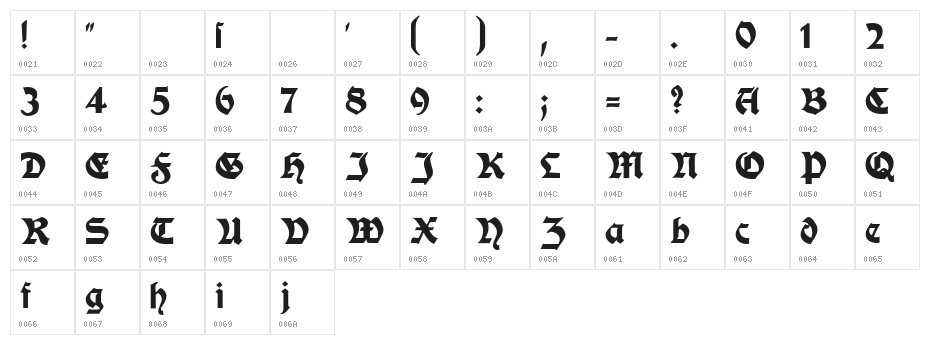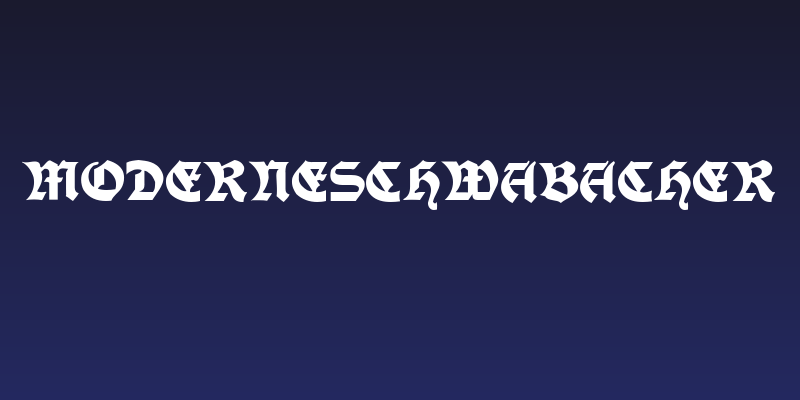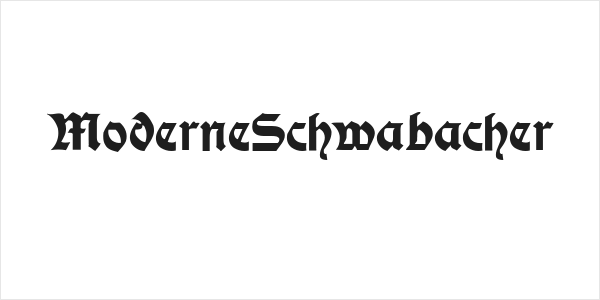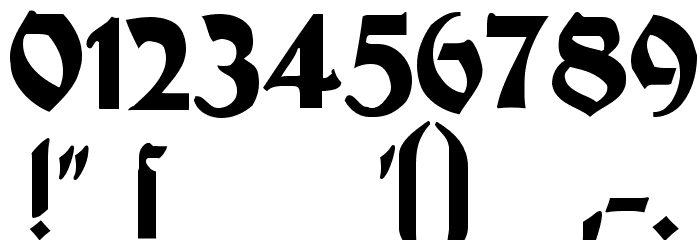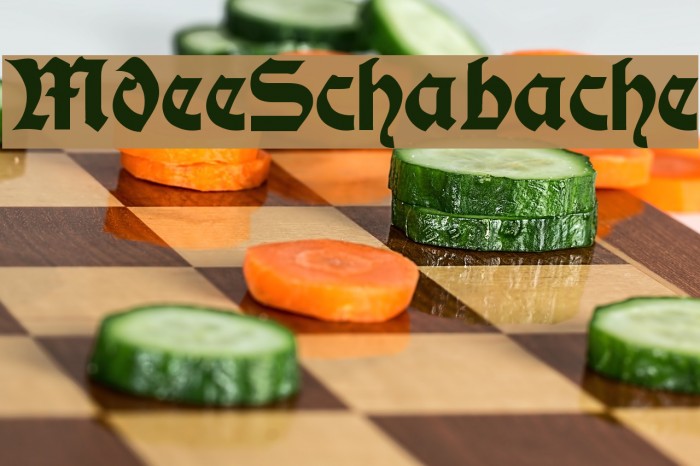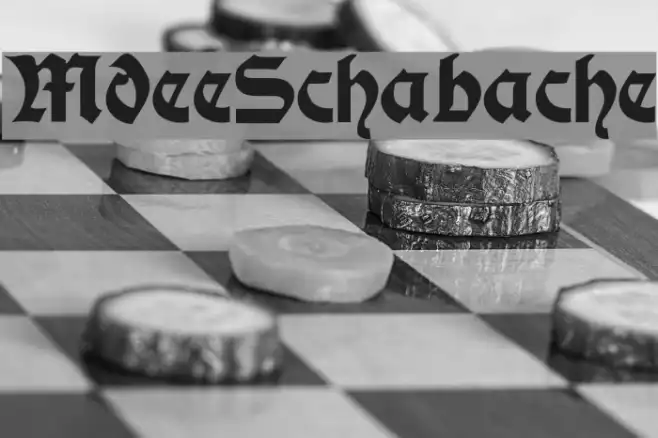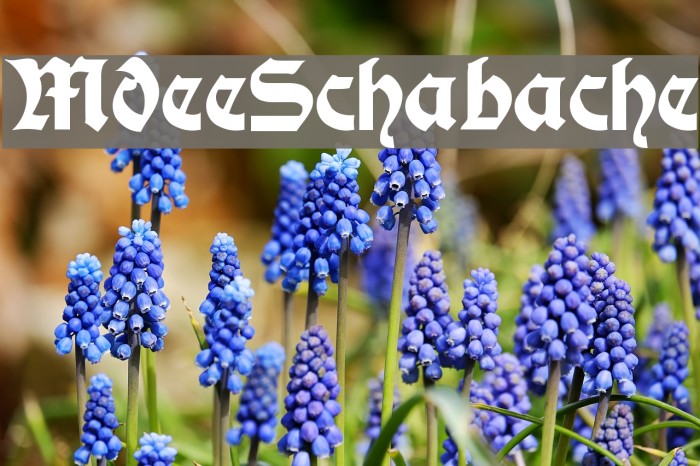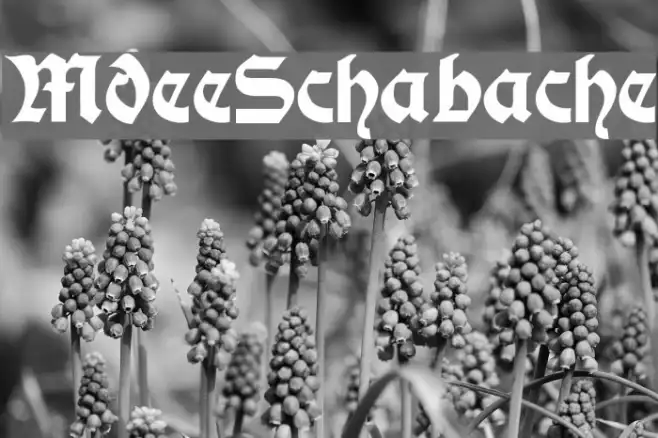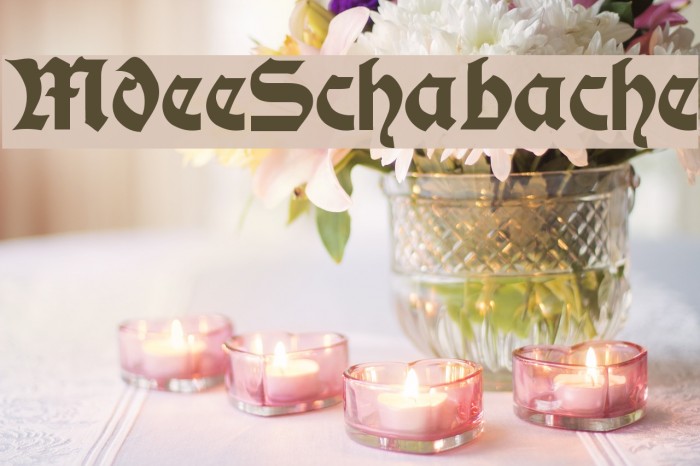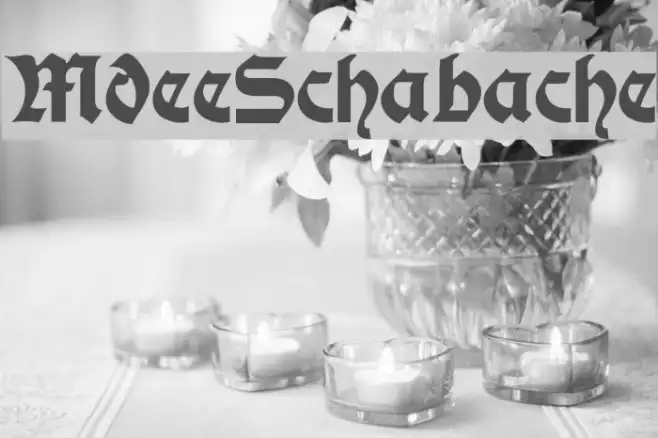
ModerneSchwabacher Font
ModerneSchwabacher Description
This font exhibits a traditional blackletter style, characterized by its bold, angular strokes and intricate design. The uppercase letters are ornate, with sharp edges and a medieval flair, while the lowercase letters maintain a consistent style with slightly more rounded forms. The numerals are distinct, featuring a strong presence with their thick lines and unique shapes. Special characters are designed to complement the overall aesthetic, adding to the font's historical and decorative appeal. This font is ideal for projects that require a touch of classic elegance and a nod to historical typography.
| Use Case | Logos, Headlines, Decorative purposes |
| Proposed Projects | Suitable for historical documents, event invitations, book covers, and branding that requires a classic or medieval touch. |